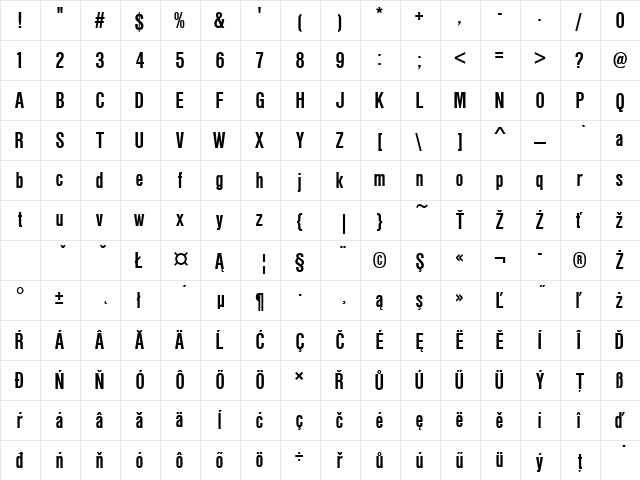
NimbusSanPEECon Bold Font Preview
NimbusSanPEECon Bold
Design Context for NimbusSanPEECon Typeface
NimbusSanPEECon is a composed and adaptable typeface that performs quietly and consistently across a wide range of design contexts. The heavy weight commands attention and anchors typographic hierarchies.